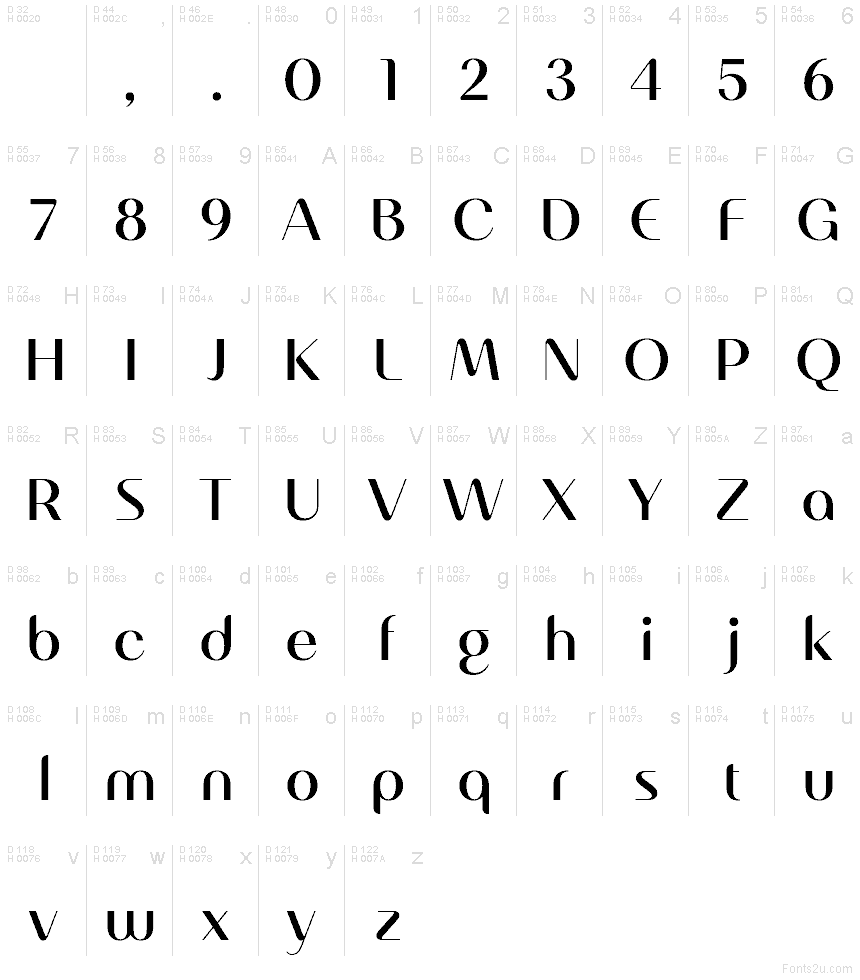
Nearo Medium font by Digitype Studio is a free sans serif font. Part of the Nearo family, it turns heads with razor‑thin uprights, generous circular bowls, and elegant, sculpted cuts that feel Art‑Deco meets future-tech. The letterforms look polished and airy, creating a sleek rhythm that reads crisp at size while keeping a glossy, editorial sheen.
Using Nearo Medium, headlines snap into place and logos gain a refined silhouette. It shines on fashion branding, beauty packaging, magazine covers, luxury tech promos, posters, and album art. Give it room with slightly looser tracking and larger sizes, and pair this free font with a plain grotesk for body text to let the curves do the talking.